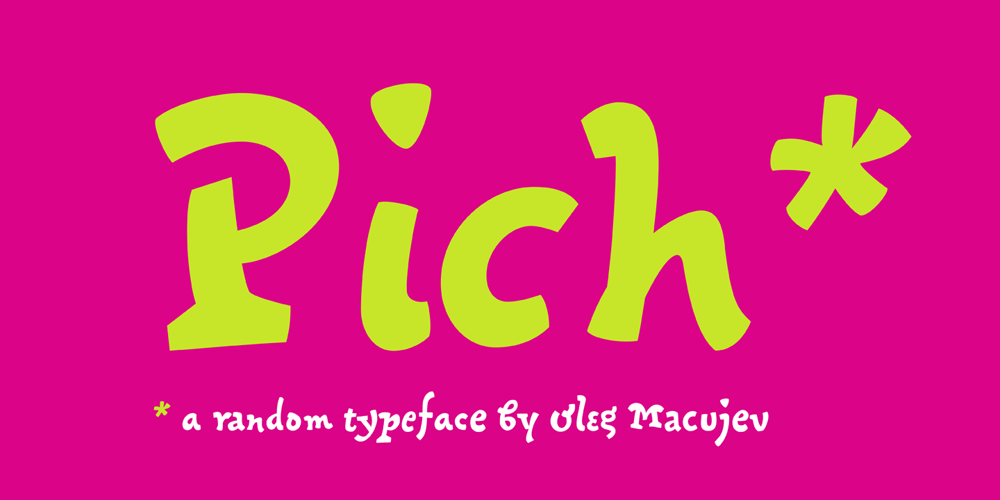
Pich Font Family was designed by Oleg Macujev and published by omtype. Pich contains 1 styles and family package options. Pich is a typeface that imitates vivid and free hand-drawn lettering. Each lowercase letter has three alternates and Contextual Alternates feature substitutes them producing random-like effect. Also you can choose required letter from the Glyphs palette. In addition to this Pich has a set of ligatures (both Latin and Cyrillic). All these features allow Pich to look hand-crafted, unique and natural. The font was initially created for Pichshop company. Pich was selected among Top-100 of Russian design (2010) according to the Kak magazine.